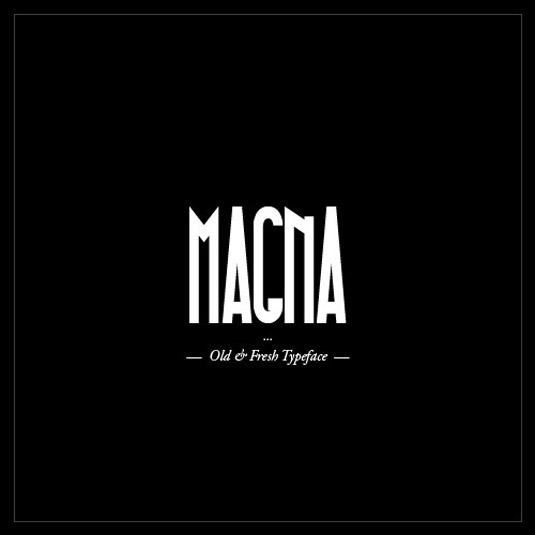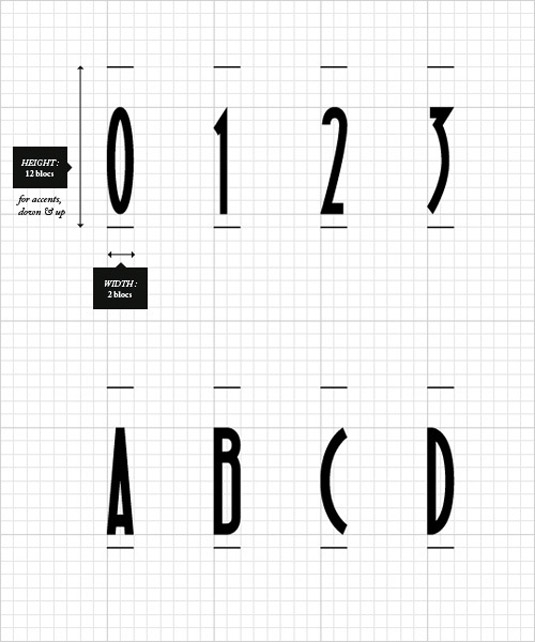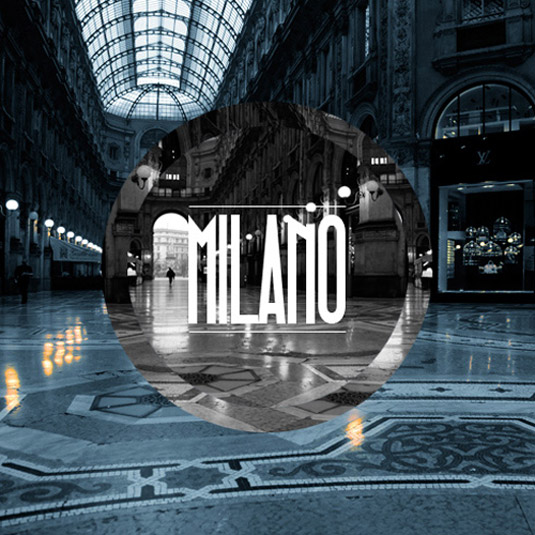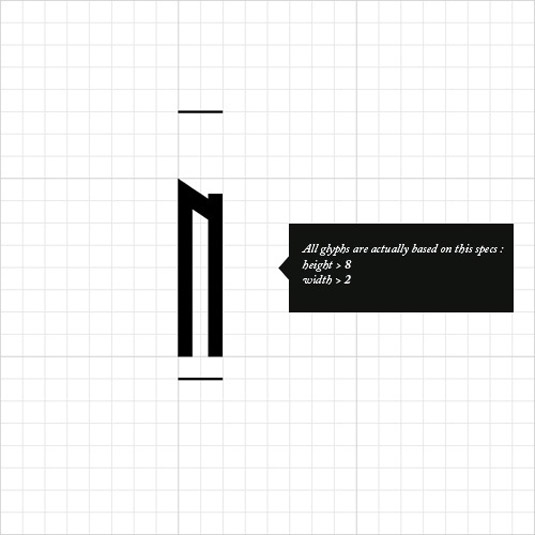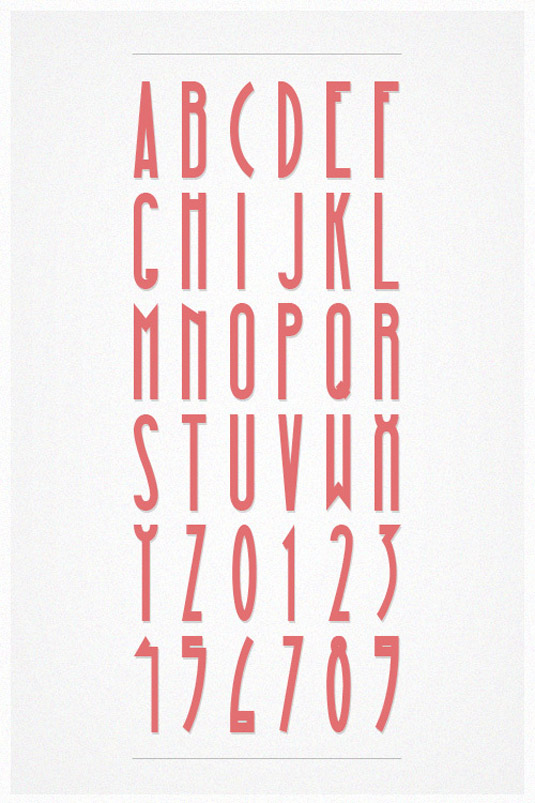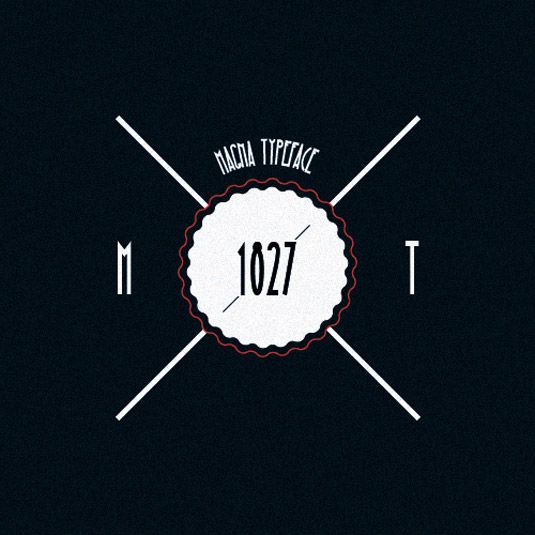
Font of the day: Magna
Every day we showcase the best fonts on the web. Today it's Magna by Hendrick Rolandez - and it's totally free!
Magna by Hendrick Rolandez
We featured Hendrick Rolandez's free font Coco a couple of weeks ago. And that's not his only offering. Magna is another free, popular design by the 25-year-old French graphic designer and junior art director. Developed last year, Rolandez based his design on a vintage style.